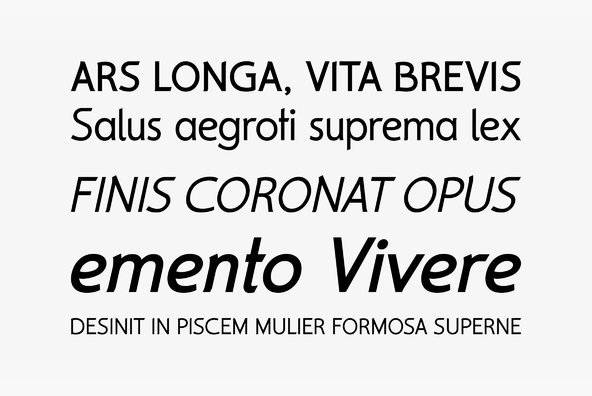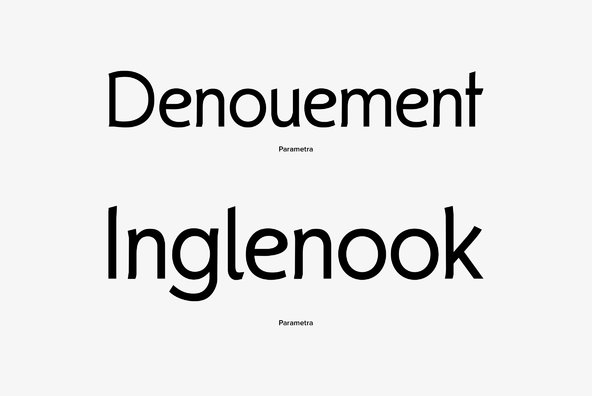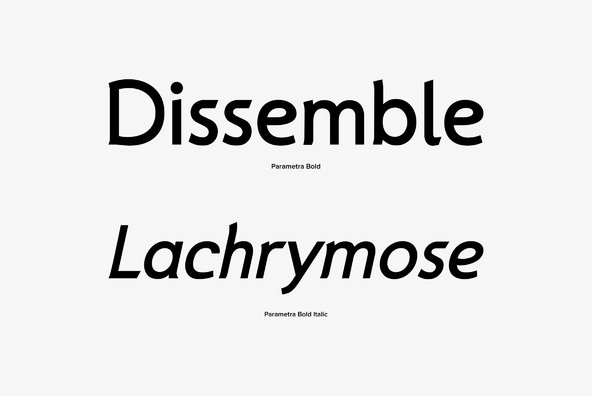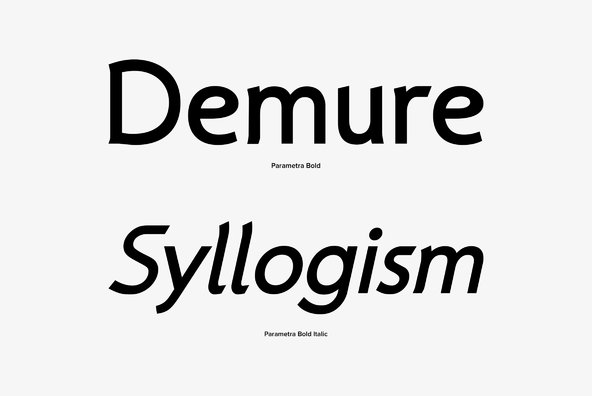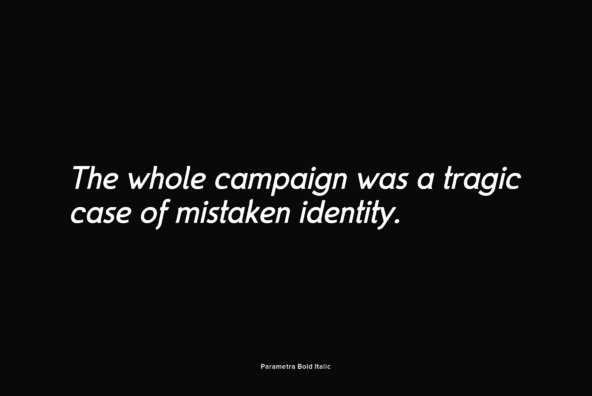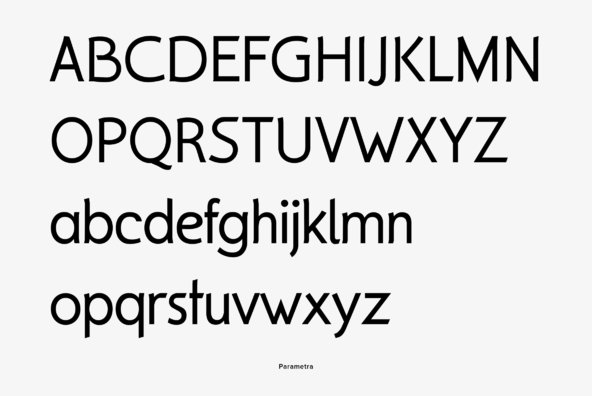
Parametra
This humanistic sans serif distinguishes itself by its Japanese calligraphy influence. Being written with a felt tip rather than with a brush, its Japanese connotation is remote and non-dominant, thus providing excellent readability and a charm of its own. Parametra is a very elegant and modern typeface achieved by the strong form reduction of the individual characters and at the same time harmonizing them by given parameters. It is something of its own, but quite legible and well-suited for small text. Also, Parametra and Bohemian can be mixed perfectly since their proportions and dimensions are the same. Parametra was designed for the URW++ FontForum.